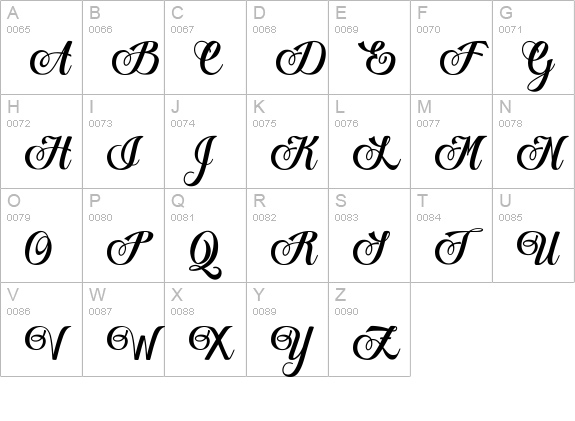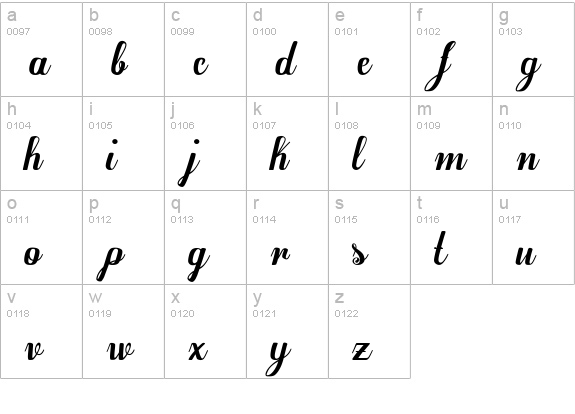
Egregio Script_demo Font Details
Egregio Script_demo is an exquisite and elegant font that will add a touch of sophistication to any design project. With its delicate curves and graceful strokes, this script font is perfect for creating stunning logos, branding materials, invitations, and more. The beauty of Egregio Script_demo lies not only in its captivating aesthetics but also in its versatility. Whether you're aiming for a romantic and whimsical look or a classy and refined feel, this font has got you covered. Its flowing letters effortlessly intertwine, creating a harmonious and visually pleasing composition. What makes Egregio Script_demo even more remarkable is that it is available for free. That's right, you can download this stunning font without spending a dime. Simply head over to FontsMarket.com and easily access this gem. By offering Egregio Script_demo free of charge, we're making it accessible to all designers, regardless of their budget. So, why wait? Enhance your design projects with the elegance and charm of Egregio Script_demo. Download this beautiful font today and let your creativity soar.